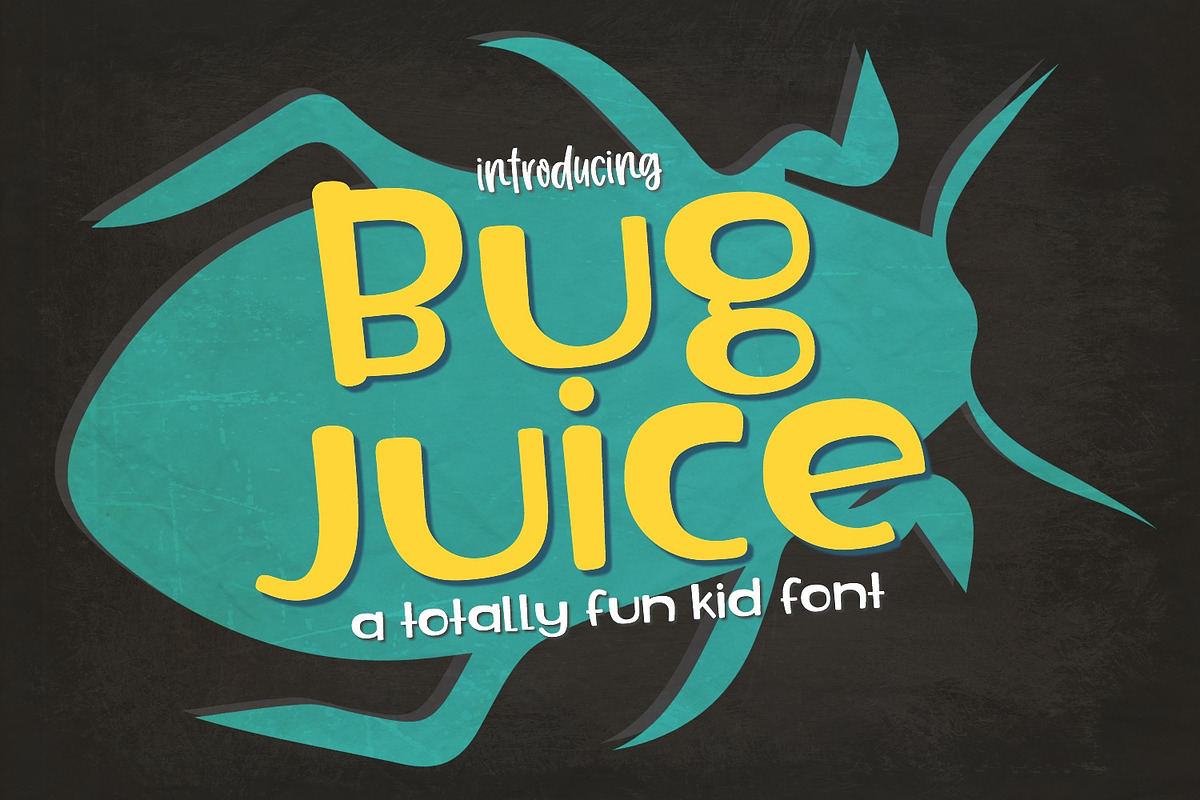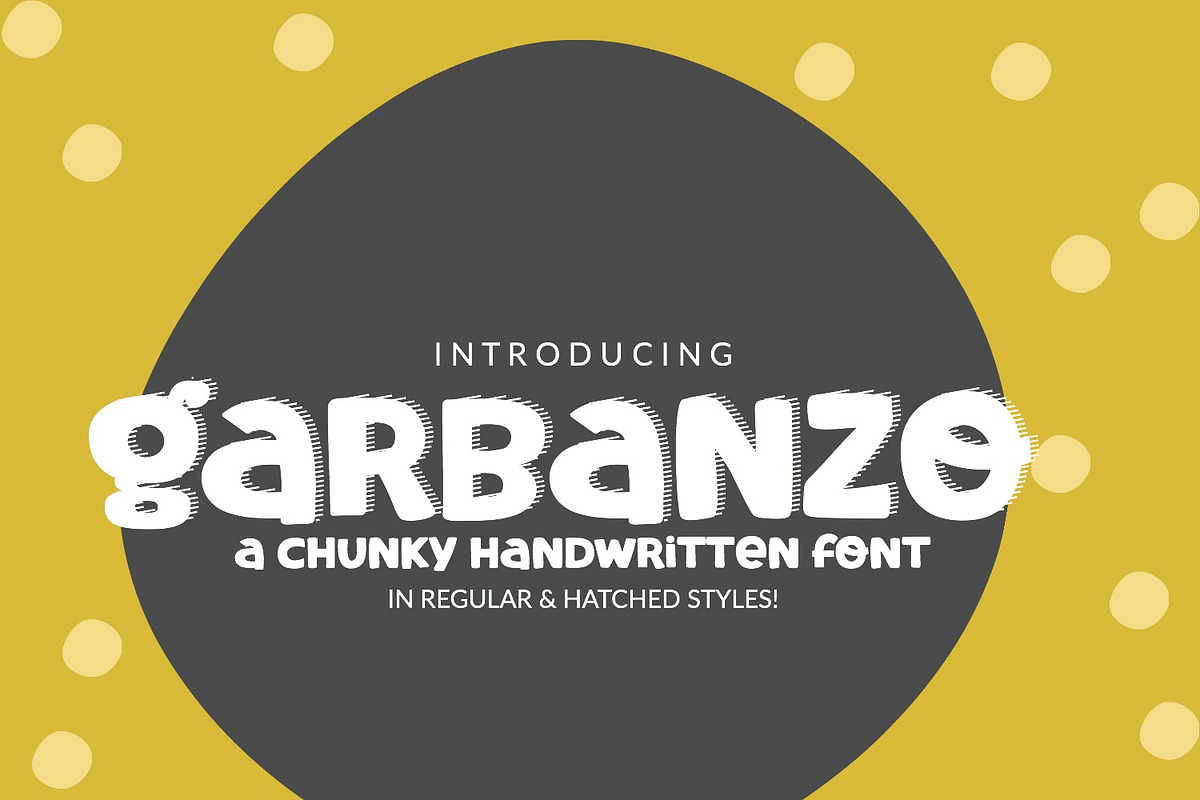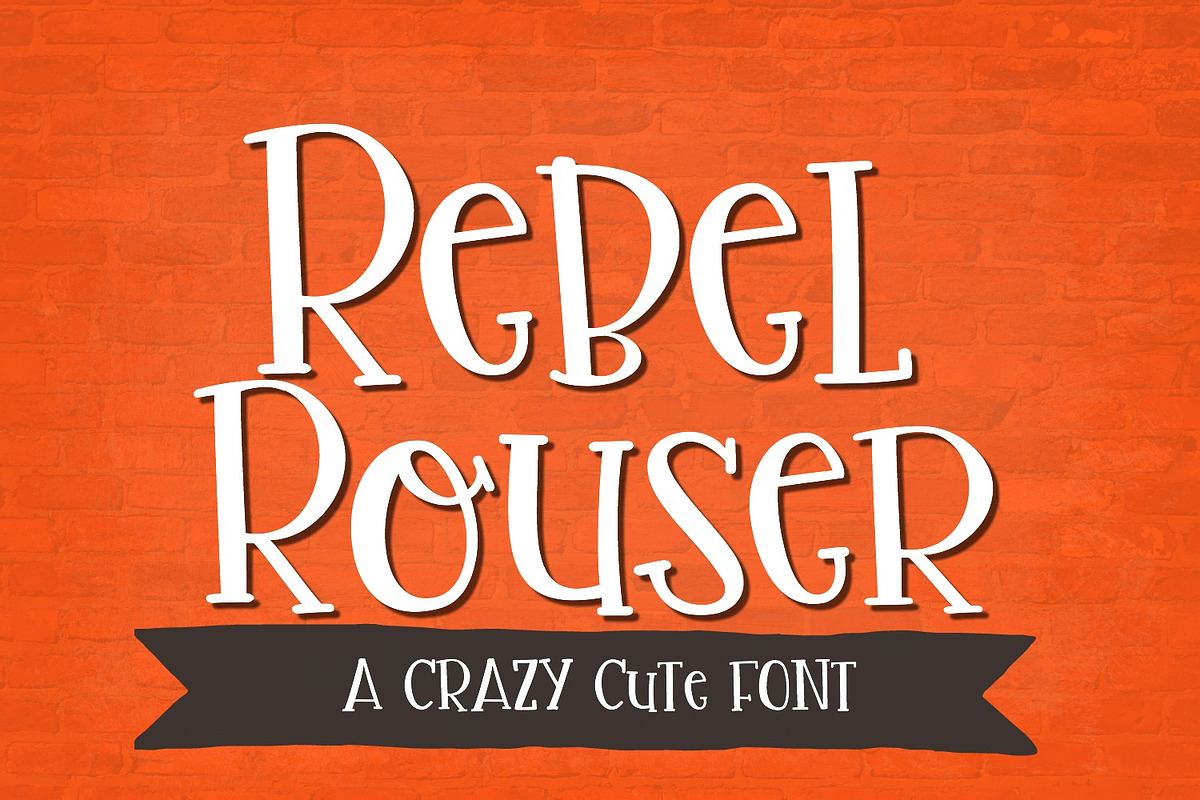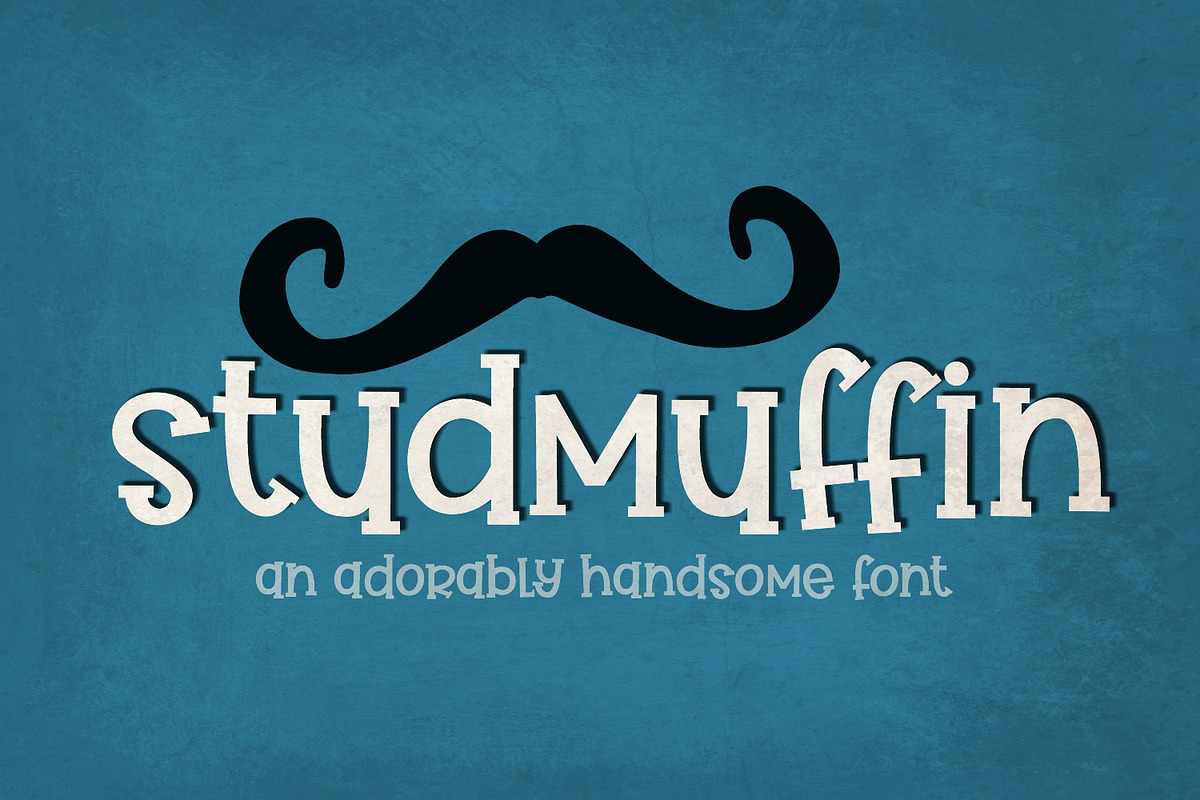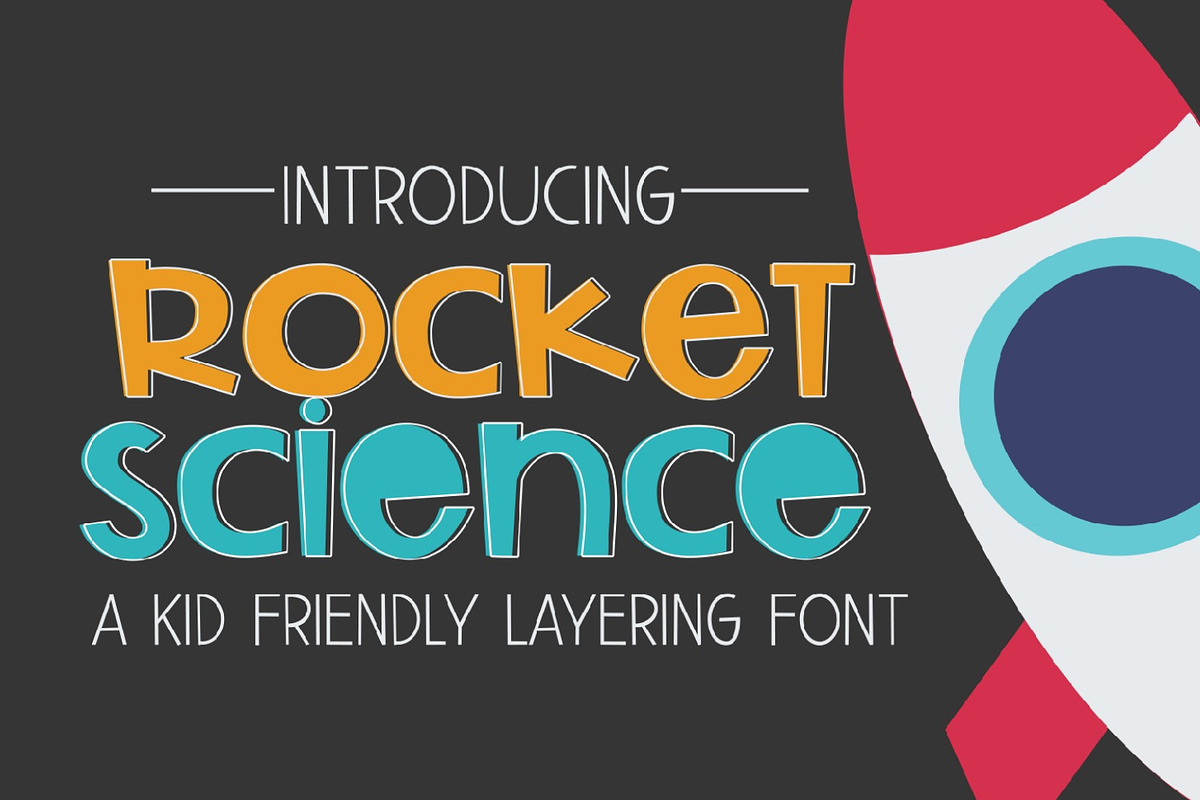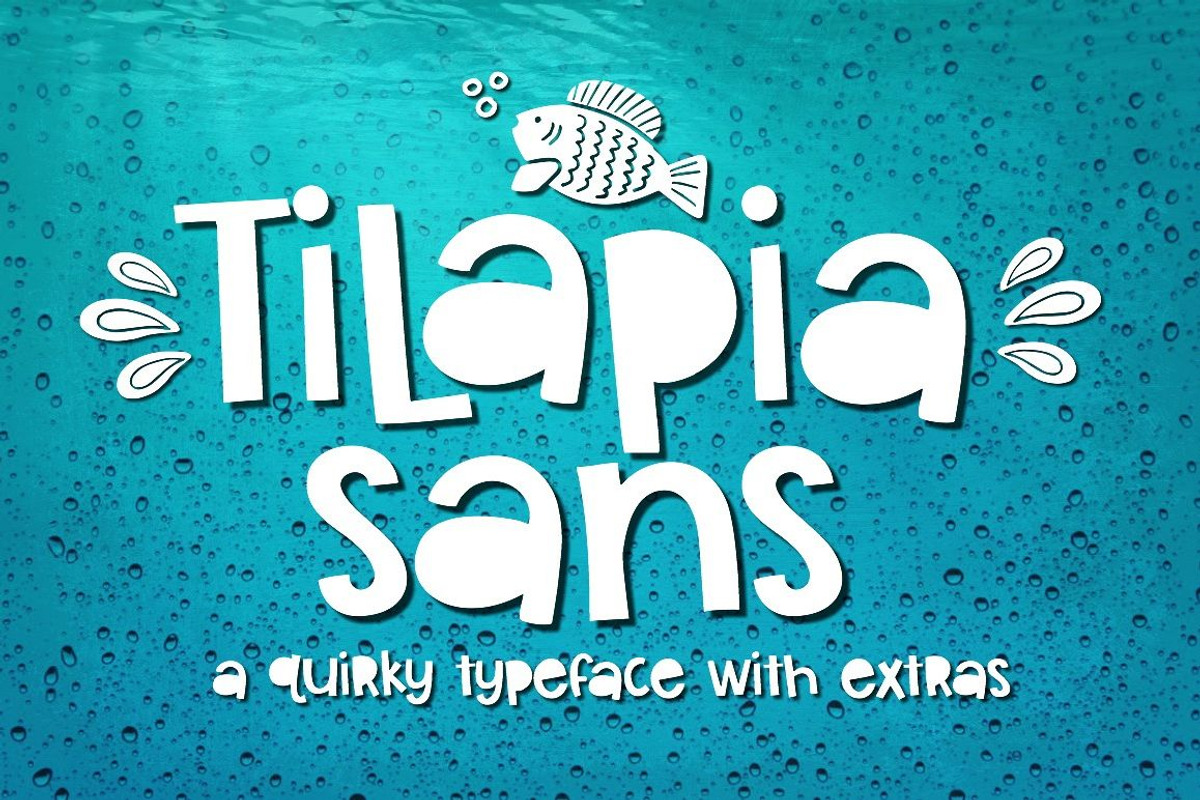
Super Crafty Kids Font Bundle
This Super Crafty Kids Font Bundle is perfect for Cricut & Silhouette crafters creating adorable kids designs!
Included Fonts: •Bug Juice •Studmuffin •Rocket Science •Tilapia Sans •Garbanzo •Rebel Rouser
Super Crafty Kids Font Bundle by Sabrina Schleiger Design fits naturally into Branding, posters, packaging, typography.